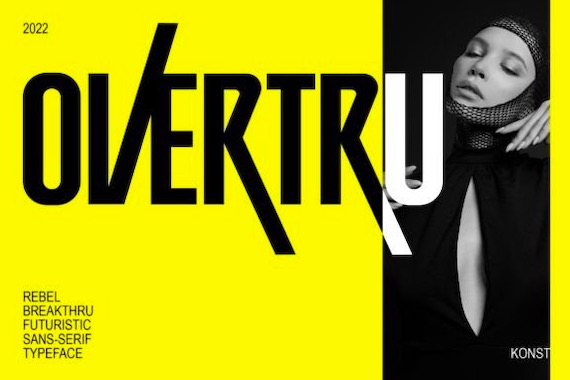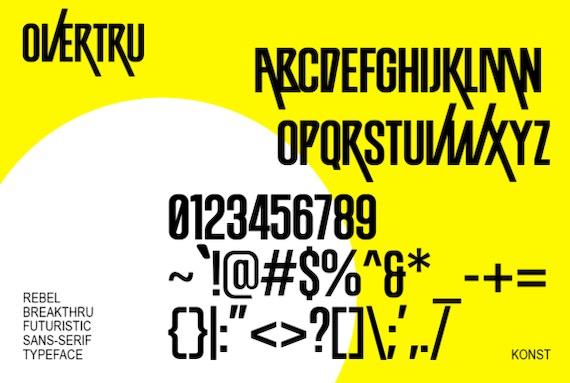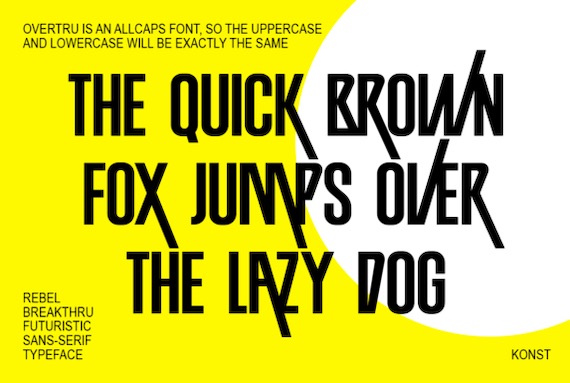
Introducing a new fresh & fancy display sans serif font from Konstantine Studio, Overtru. It is a definition of a rebel statement in a form of fonts. To double up your loudness in a visual way.
Perfectly fit for the poster, brand campaign, futuristic theme design, logo, sports branding, fashion, packaging, header, album artwork, scream out loud.
Overtru Sans Serif Font